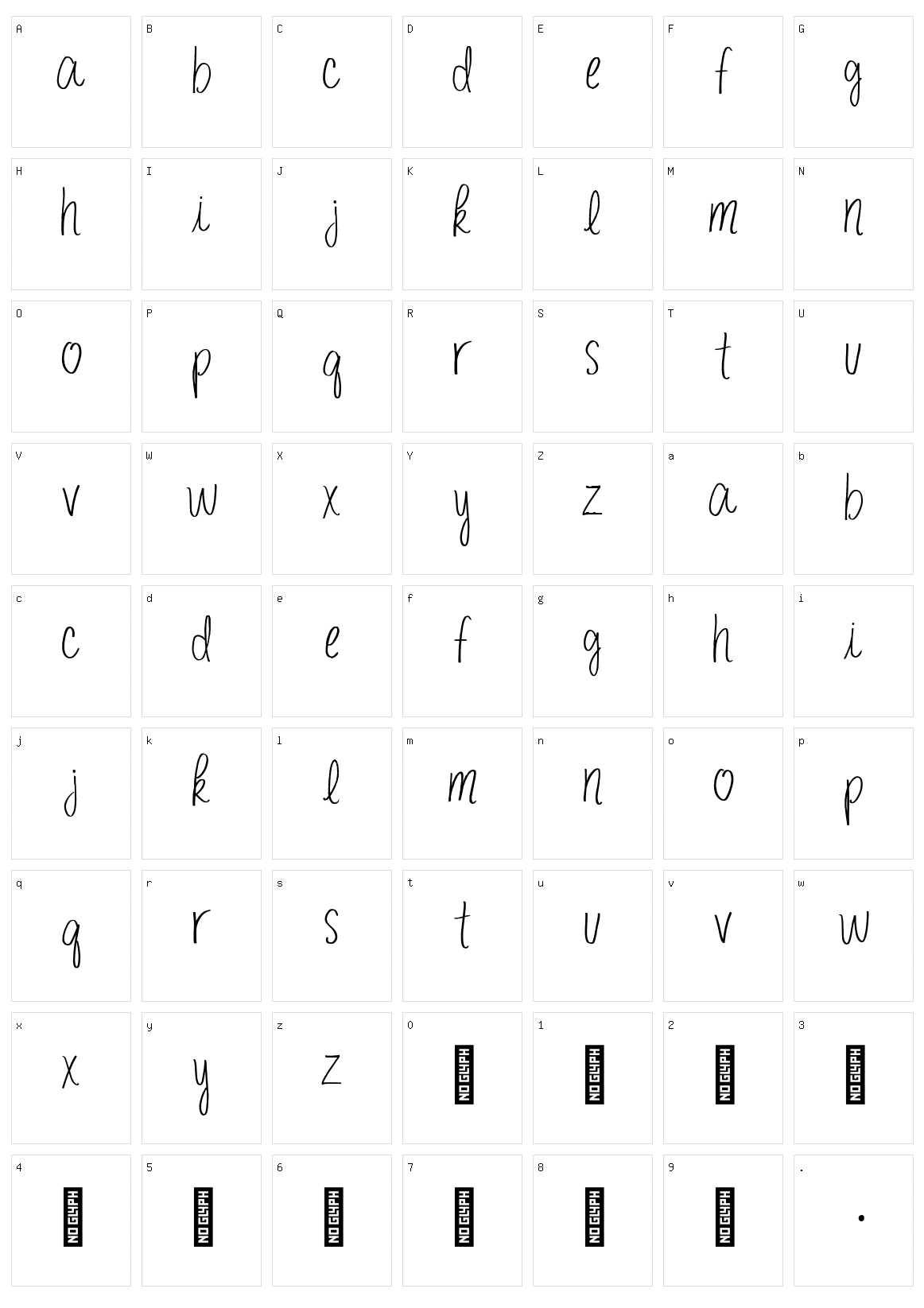
The free font Easy Morning is carefully designed by Colette Fogarty, showcasing a thoughtful balance of creativity and usability and falls under the Script font style. When you download the ZIP file, it contains only 28.05 KB of font files, making it lightweight and quick to download. Please review the license details below to understand permitted usage and distribution rights. If license information is not available, we recommend using this font for personal projects only or contacting the author directly for commercial usage permissions.